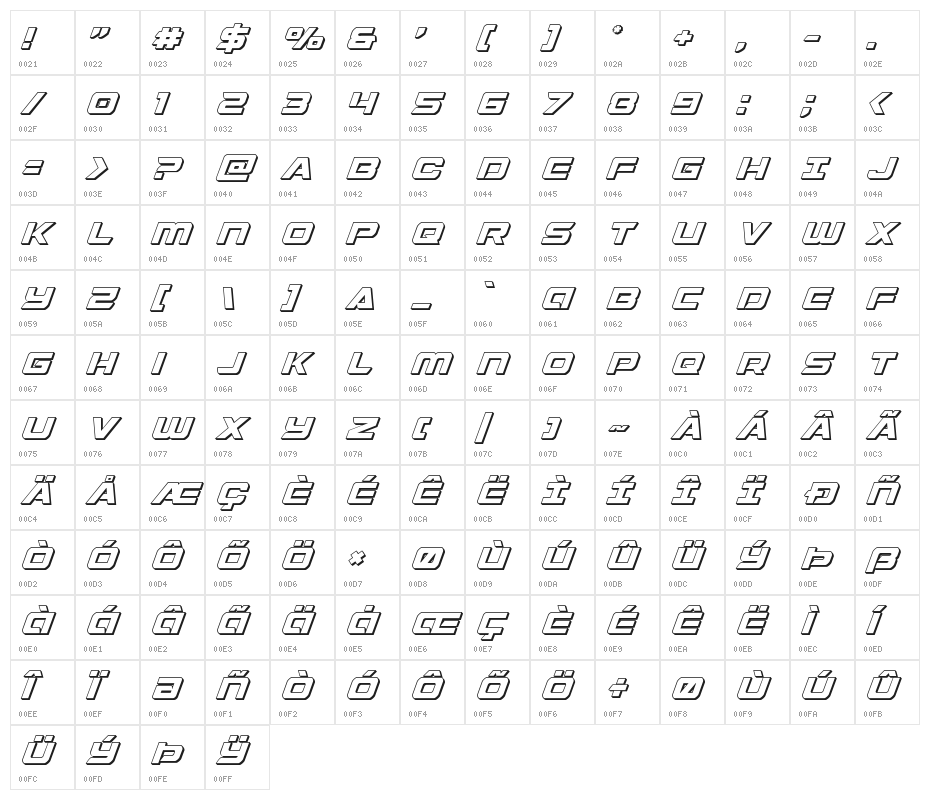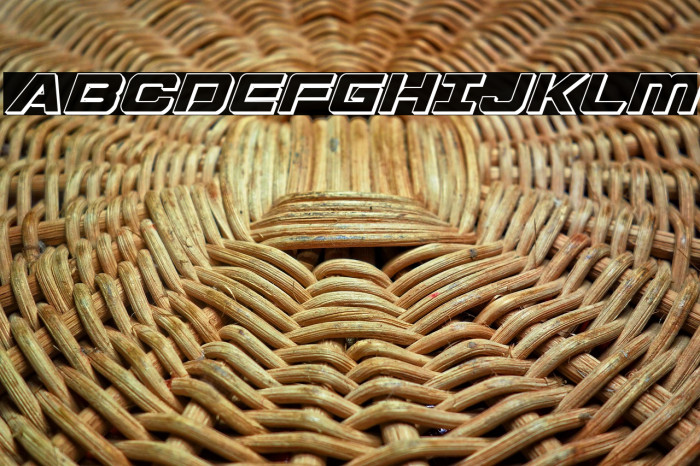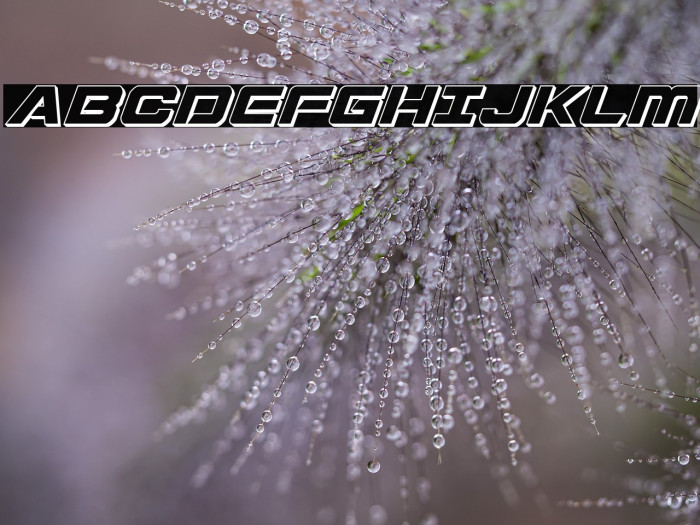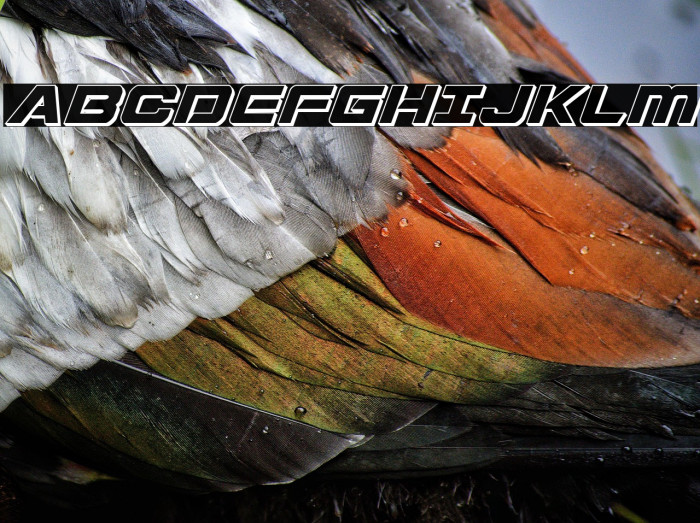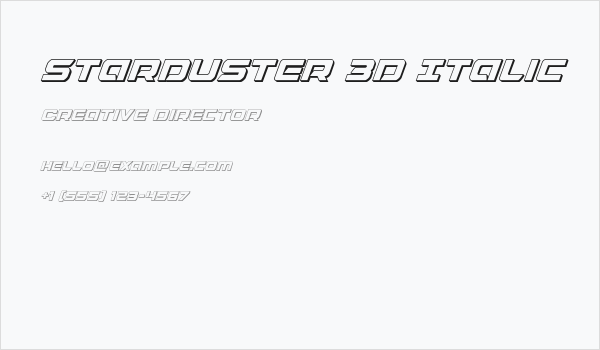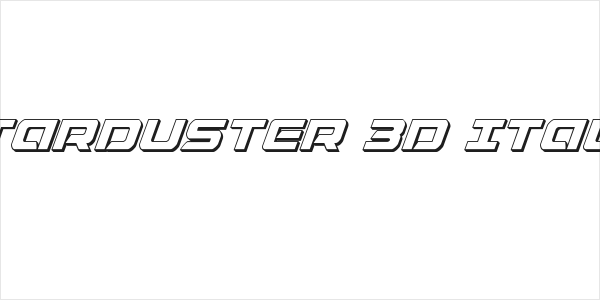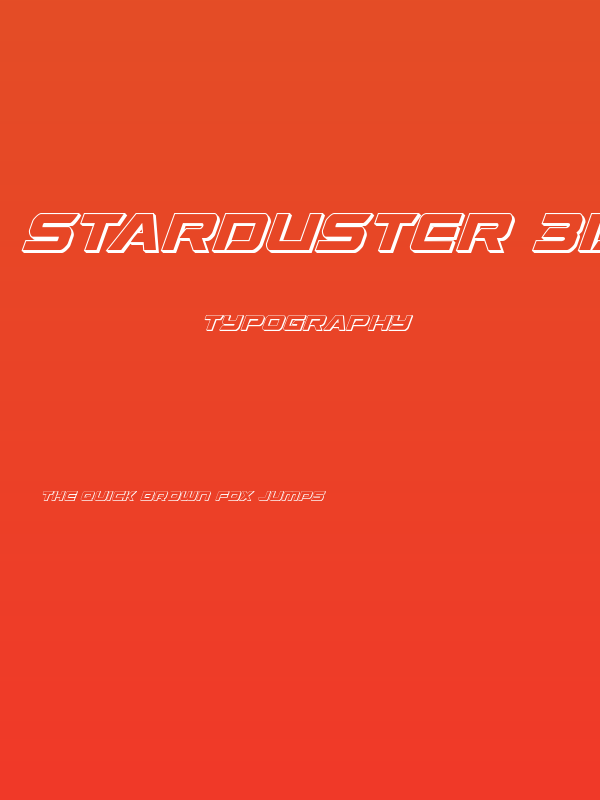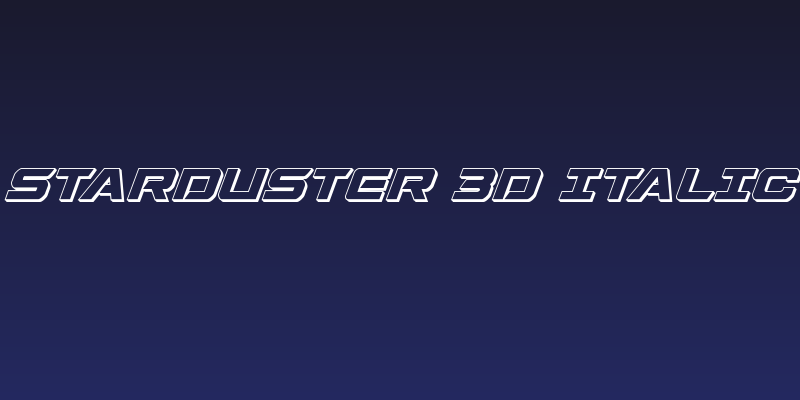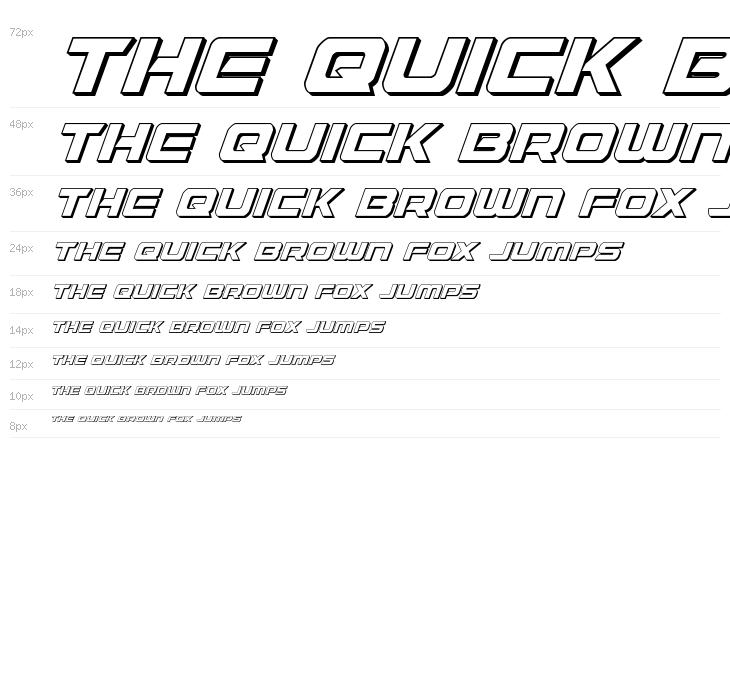
Starduster 3D Italic Font
Starduster 3D Italic Description
This font features a bold, three-dimensional design with an italic slant, giving it a dynamic and futuristic appearance. The characters are outlined, creating a sense of depth and movement. The uppercase and lowercase letters maintain a consistent style, with sharp angles and clean lines. The numerals and special characters follow the same aesthetic, ensuring uniformity across all glyphs. This font's unique style makes it stand out, perfect for projects that require a modern and eye-catching look.
Proposed ProjectsIdeal for sci-fi themed posters, video game titles, or any project needing a modern, standout typeface.